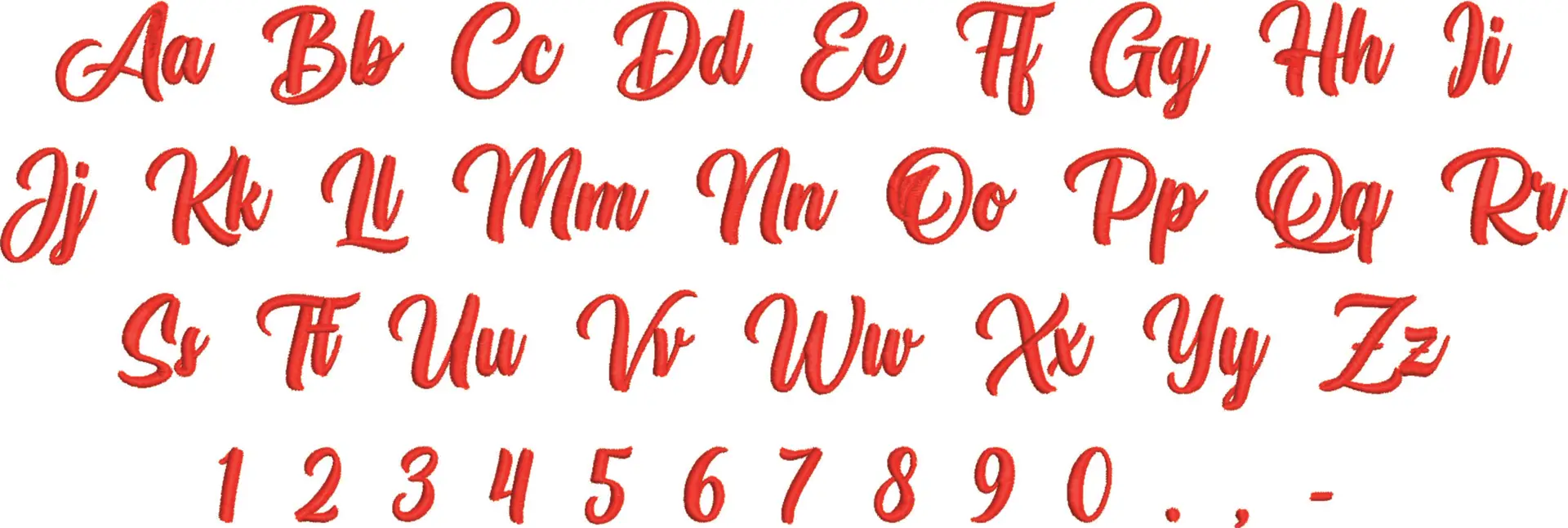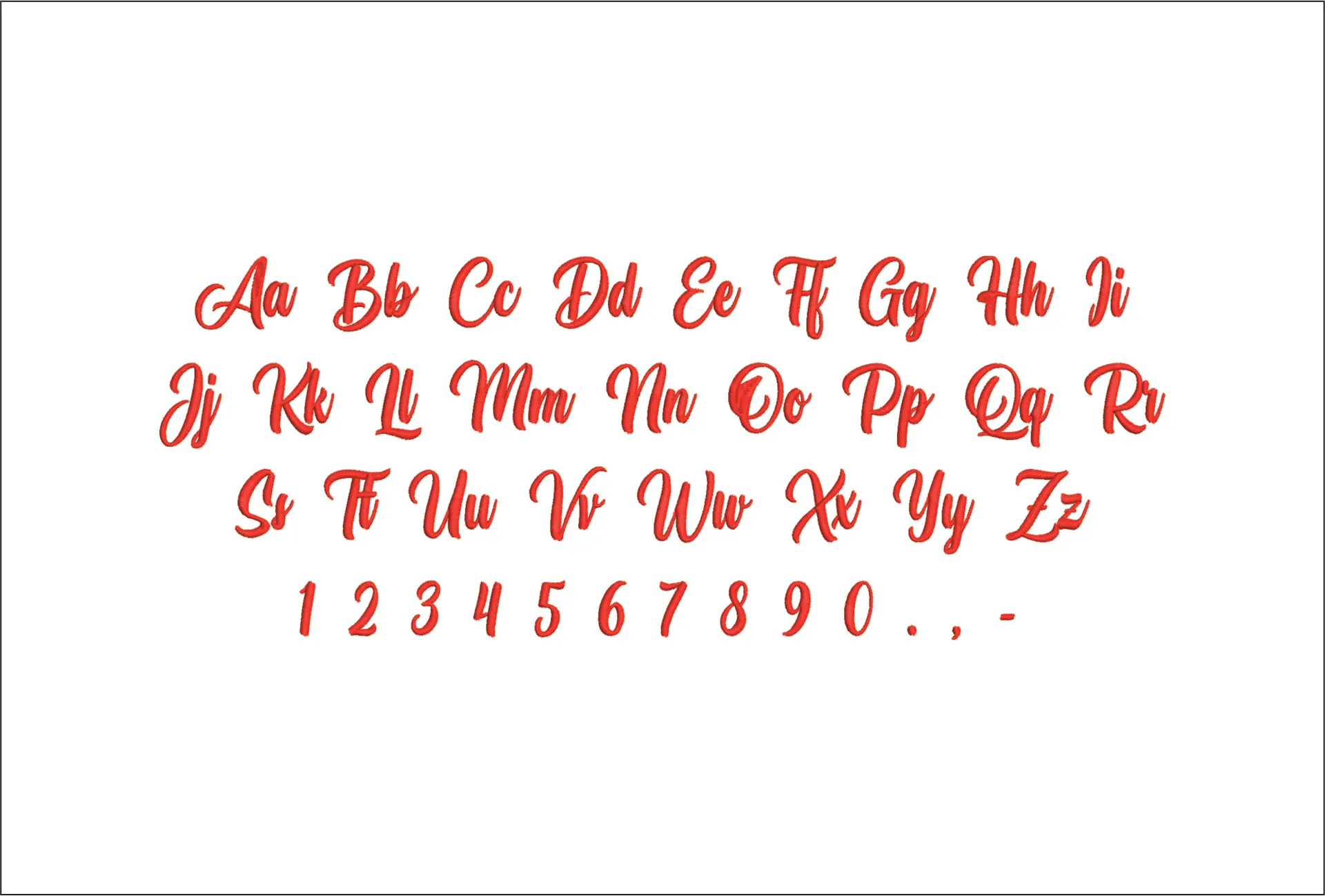
A flowing athletic script font that gives hoodies, warm-up tops and kit bags a polished, custom-team finish.
Bring sporty script to jackets, hoodies and teamwear with this Athletic Outfit embroidery font set, drawn in a flowing cursive style with neat swashes. The lettering has a confident, active feel that suits school sports kits, dancewear, gym clothing and club merchandise without looking stiff or blocky. Shown in red thread, the script reads clearly while still keeping that smooth, personalised look people want on athletic apparel.
This style works especially well on sweatshirt fleece, track jackets, training tops and canvas kit bags where a softer script can balance more practical fabrics. Use it for chest names, back wording, sleeve details or a matching touch across a whole team set. Because the letters are fluid rather than chunky, the finished look feels more boutique and less standard-issue, which is ideal when you want sportswear to look coordinated but still individual.